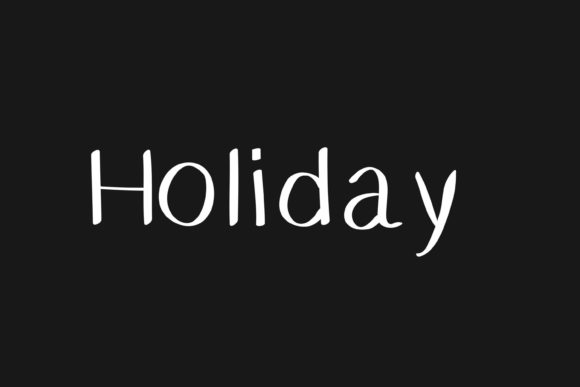
Tamarind Sweet Font: The Simple Handwritten Style for Real Projects
Finding a typeface that feels personal without being overbearing is a common challenge for designers and creators. Tamarind Sweet Font is a simple handwritten font that strikes this balance well. It's not trying to be the loudest voice in the room; instead, it offers a warm, approachable, and slightly whimsical character that works quietly in the background to enhance a message. This premium font is designed for clarity and charm, making it a versatile tool in a creative professional's toolkit.
Visually, Tamarind Sweet is defined by its clean, fluid strokes and consistent baseline. Unlike overly ornate script font styles, it maintains excellent legibility even at smaller sizes. The letterforms have a natural, slightly rounded quality that evokes a sense of friendliness and authenticity. It feels handcrafted, but not messy; personal, but still professional. This personality makes it an effective display font for headlines and titles where you want to inject a human touch without sacrificing readability.
Where This Handwritten Font Truly Shines
The strength of Tamarind Sweet Font lies in its adaptability across a wide range of practical applications. For brand identity, it can be the cornerstone of a logo or branding system for businesses that want to appear approachable and human. Think boutique bakeries, independent bookshops, artisan craft brands, or lifestyle coaches. It communicates care and personal attention, which can be a powerful differentiator.
In marketing and social media graphics, this creative font cuts through the digital noise. It's perfect for Instagram quotes, Facebook ads, email headers, and Pinterest pins where you need to grab attention quickly with a relatable tone. Its simplicity ensures it renders well on screens of all resolutions. For packaging design, especially for gourmet foods, cosmetics, or handmade goods, Tamarind Sweet adds an artisanal feel to labels and product names, suggesting quality and craftsmanship.
For editorial design and publishing, it works beautifully for chapter titles, pull quotes, or stylized subheadings in magazines, blogs, and e-books. It provides a break from more formal serif font or sans serif font body text, adding visual interest and guiding the reader's eye. On physical products like greeting cards, posters, and merchandise such as mugs or t-shirts, its legibility and charm make it a reliable choice for quotes on products and impactful slogans.
Making It Work: Practical Guidance for Designers and Creators
Choosing a font is just the first step. Using it effectively is what builds a strong visual hierarchy and reinforces brand perception. With Tamarind Sweet, consider its role carefully. It excels as a headline or accent font, but pairing it thoughtfully is key. A common and effective strategy is to pair this handwritten font with a clean, neutral sans serif font for body copy. This contrast ensures maximum readability while allowing the personality of Tamarind Sweet to stand out without causing visual fatigue.
Always test your font pairing in context. Does the combination work on a business card as well as a website banner? Check the kerning and leading, especially for all-caps settings. While Tamarind Sweet is designed for legibility, ensure your chosen size and color contrast meet accessibility standards, particularly for digital web design projects. Review the full character set—does it include the punctuation, numerals, and language support you need?
For commercial projects, verifying the licensing is non-negotiable. Ensure the license covers your intended use, whether for a client's logo design, merchandise, or digital products. A commercial font like Tamarind Sweet typically comes with clear licensing terms, but it's your responsibility to adhere to them. Treat it as one of your essential design assets, investing in the correct license to use it professionally and ethically.
Final Thoughts on Integration
Ultimately, Tamarind Sweet Font is about adding a layer of warmth and humanity to your projects. It's not a font for every situation—highly technical documents or ultra-modern minimalist brands might look elsewhere. But for countless projects where connection and approachability are paramount, it's a superb choice. Its value is in its consistency and its ability to make text feel less like data and more like a conversation. By understanding its strengths and applying it with intention, you can leverage this typeface to create more engaging, memorable, and effective designs across both print and digital landscapes.